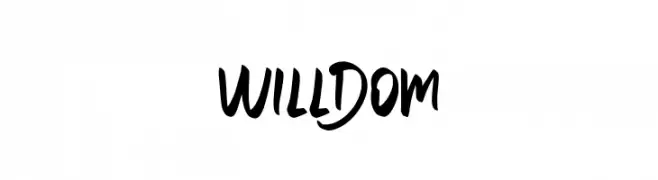
A casual, handwritten font with a dynamic and flowing style.
A modern, playful font with tall, narrow letterforms and a handwritten feel.
A bold, expressive handwritten font with dynamic curves.